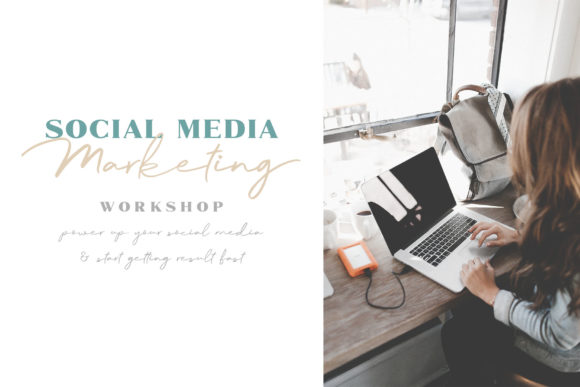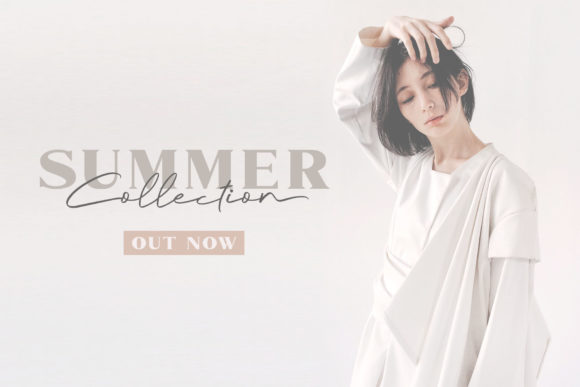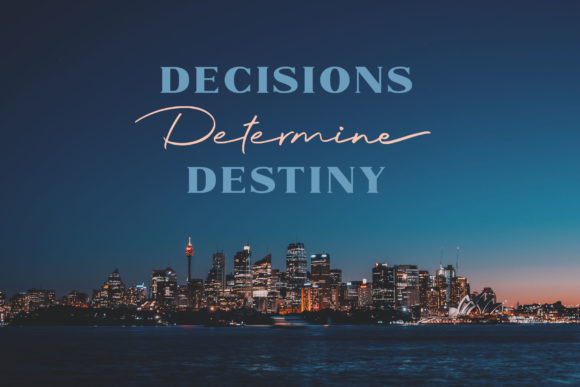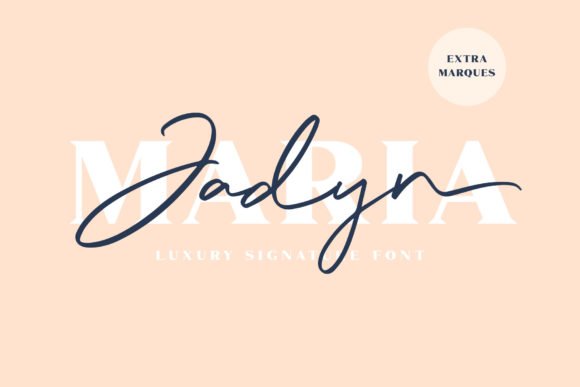
Introduction to Jadyn Maria Font
Jadyn Maria is a unique, bold and beautiful handwritten font with an elegant and sophisticated charm.
Use it for any design idea that needs an elevated and luxurious touch This download also includes the fitting Marques font family- they work perfectly together.
Key Features of Jadyn Maria Font
Why Choose Jadyn Maria Font?
Jadyn Maria Font offers exceptional quality and versatility, making it a valuable addition to your design toolkit. Whether you’re creating for personal projects or commercial use, Jadyn Maria Font delivers professional results.